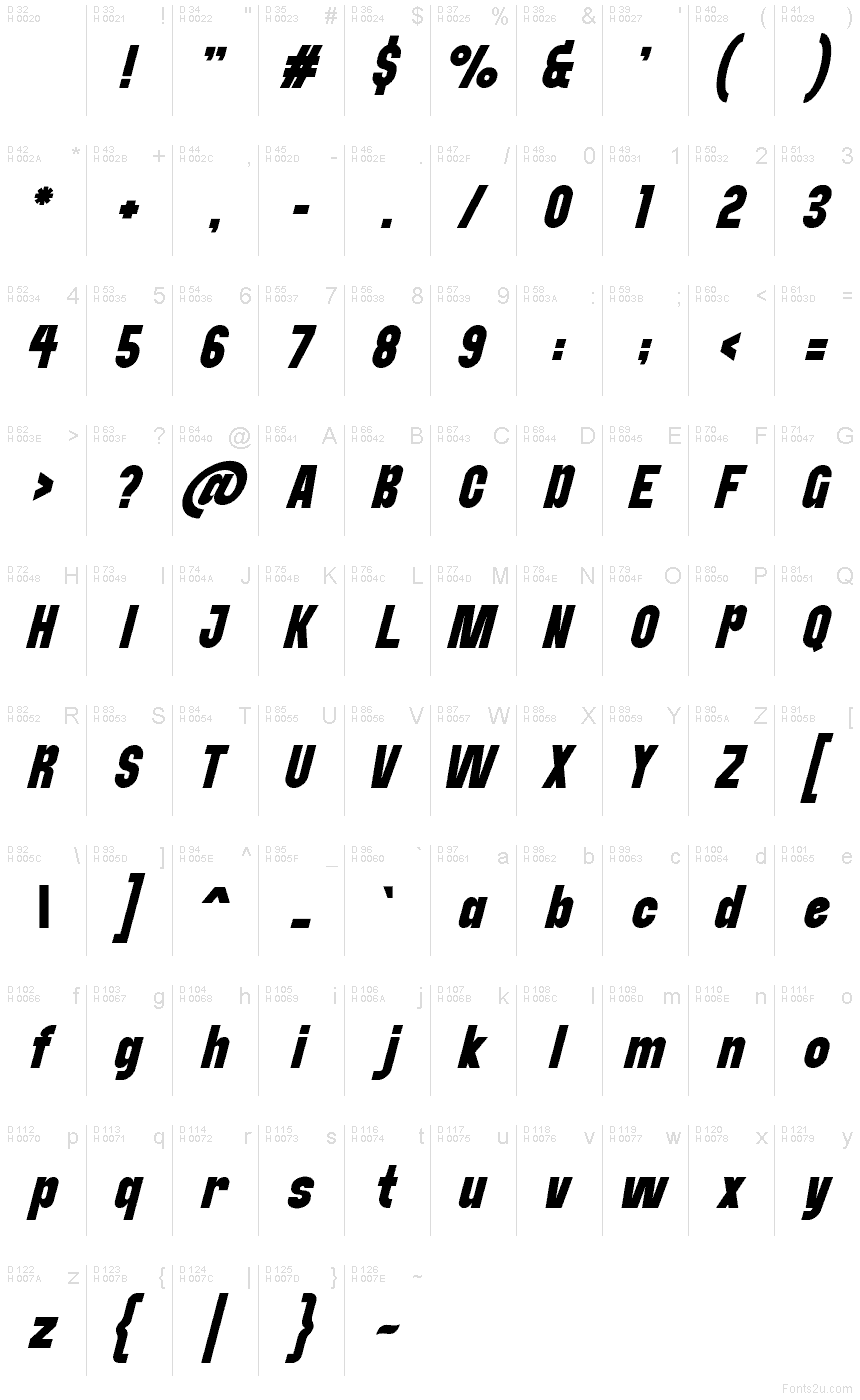
Gafien Italic
Gafien Italic font by Marvadesign is a condensed bold sans serif font with retro-inspired roots that enjoys a modern aesthetic. Geometric elements contour the body of your texts which allows you to share notes and quotes, both of which will feature the free font’s strong presence.
A Gafien Italic display introduces an impactful style suitable for website headers, advertisements, book covers, branding designs like logos or business cards, and printed projects including flyers and magazines. Enjoy this tool at hand not only in professionally created projects but also in more personal ones like daily planners.